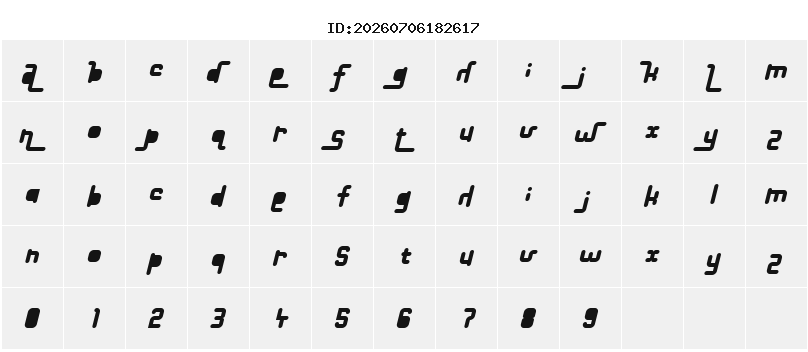
• Font Name: Destination Future
• Full Font Name: Destination Future
• Designer: imagex
About Destination Future.ttf
Destination Future.ttf is a modern, elegant sans-serif font designed for ultimate readability and visual harmony. Perfect for branding, headlines, web design, and print materials.